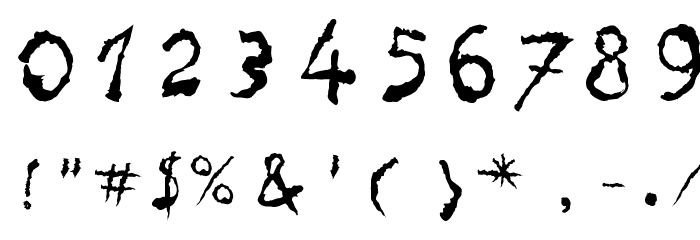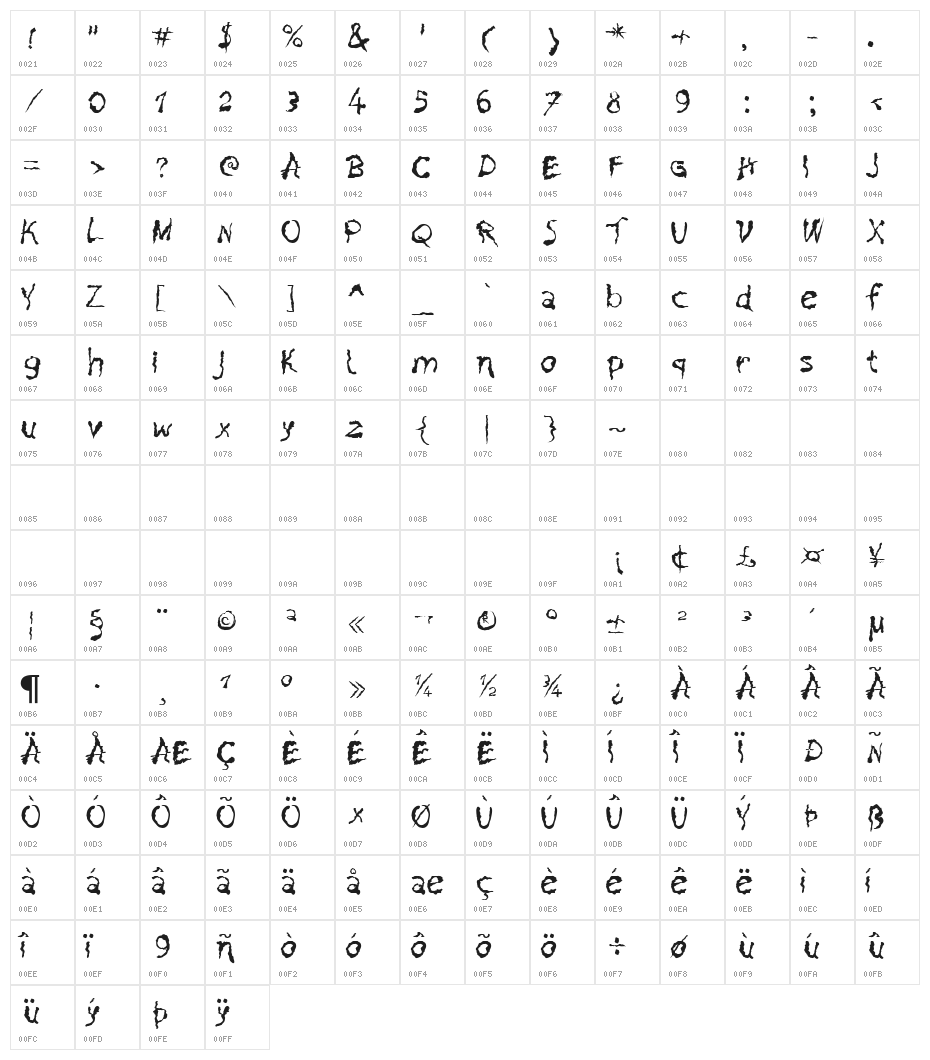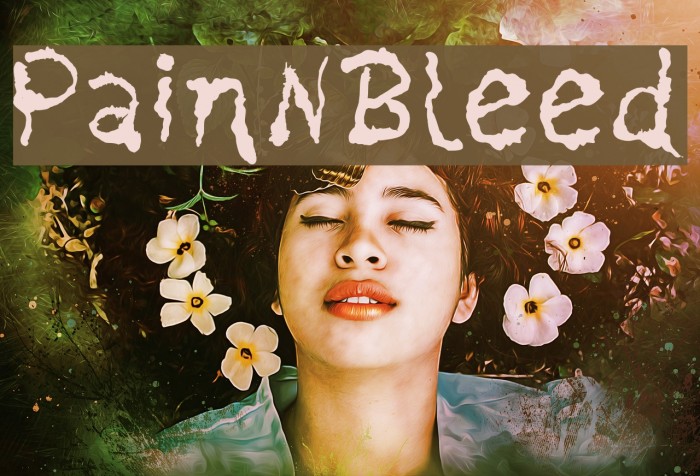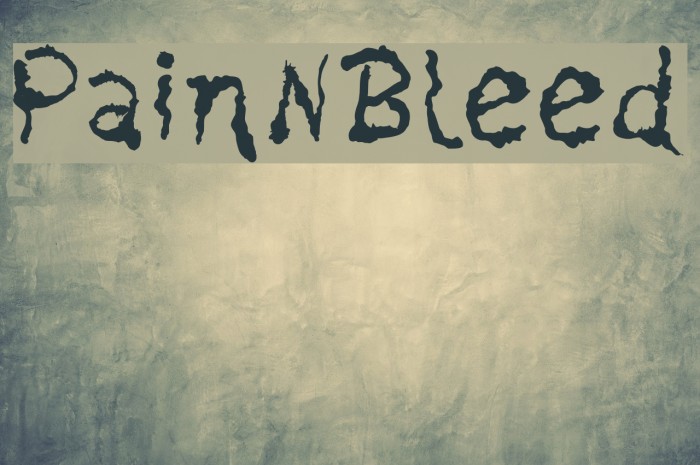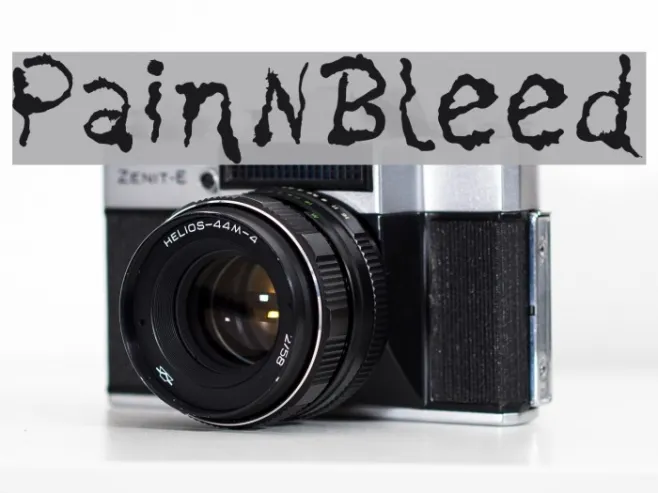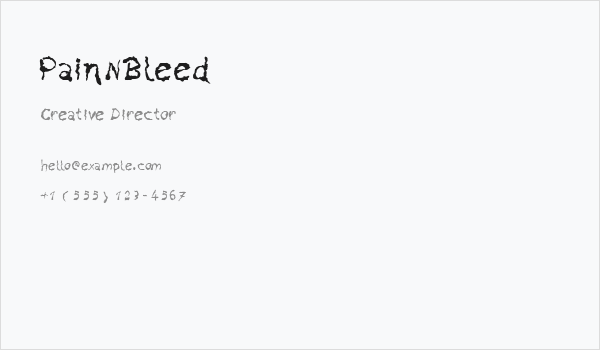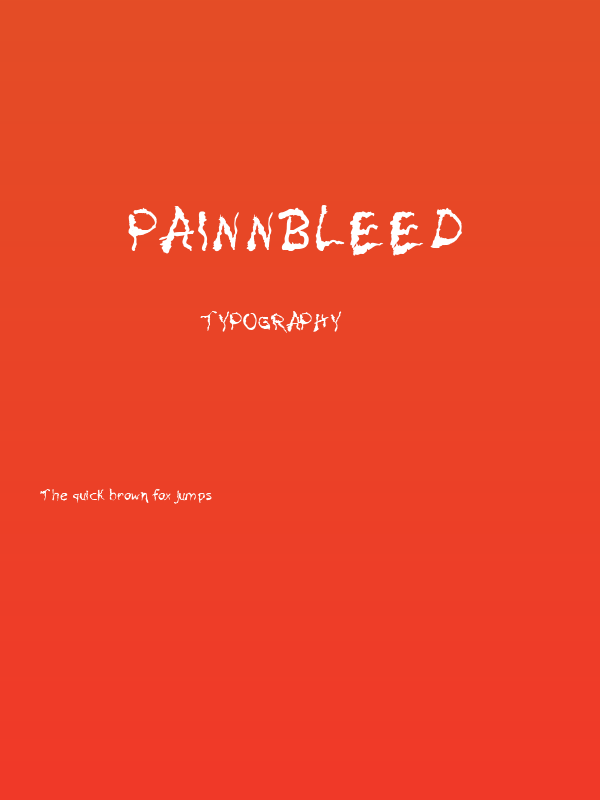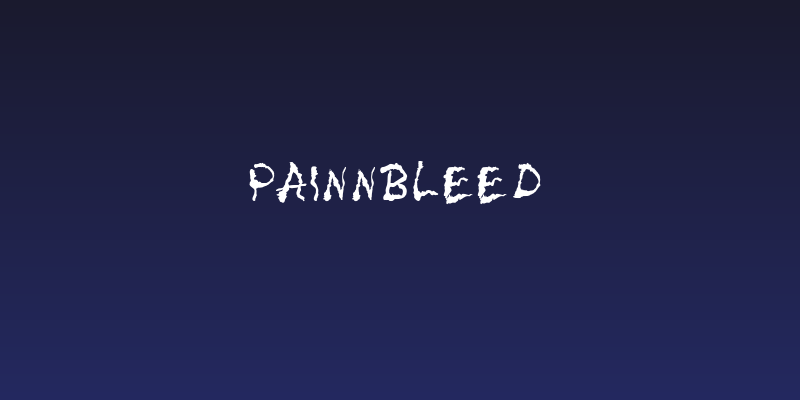
PainNBleed Font
PainNBleed Description
This font features a distressed and rugged appearance, reminiscent of ink splatters or paint drips. The characters have an irregular, jagged edge, giving them a raw and edgy feel. The uppercase and lowercase letters maintain a consistent style, with varying thickness in the strokes that adds to the chaotic aesthetic. Numbers and special characters follow the same design, ensuring a cohesive look throughout. The font's unique style makes it stand out, ideal for projects that require a bold and unconventional typeface.
| Proposed Projects | Ideal for horror-themed designs, album covers, posters, and edgy branding projects. |